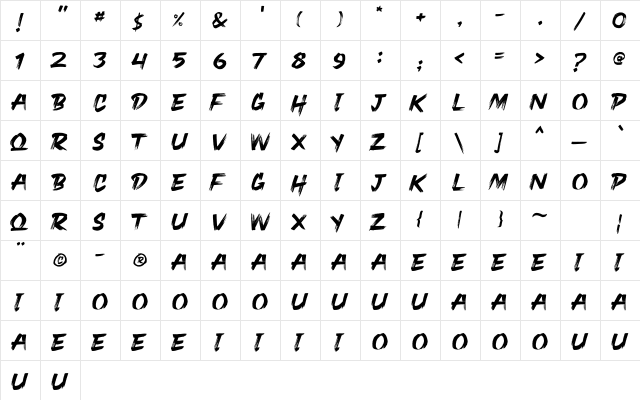
Slaztone Regular
| Designer | Gunawan Syarifudin |
Design Context for Slaztone Typeface
Slaztone is a composed and adaptable typeface that performs quietly and consistently across a wide range of design contexts.